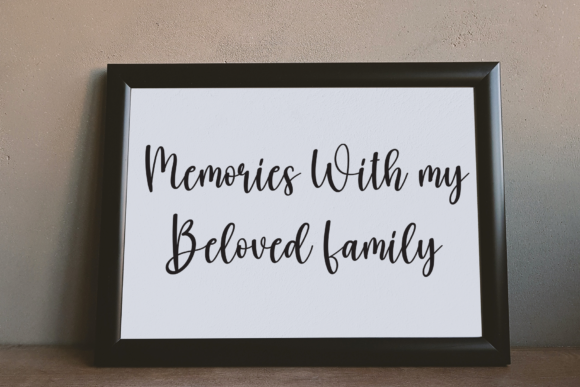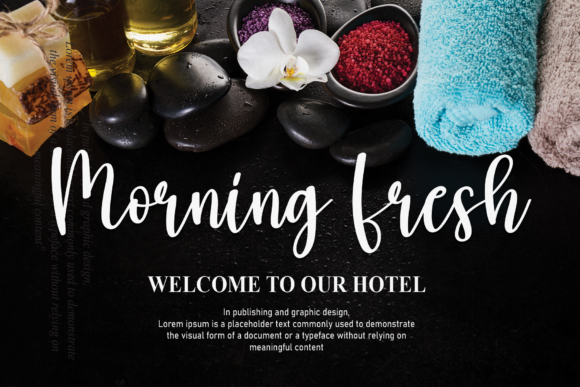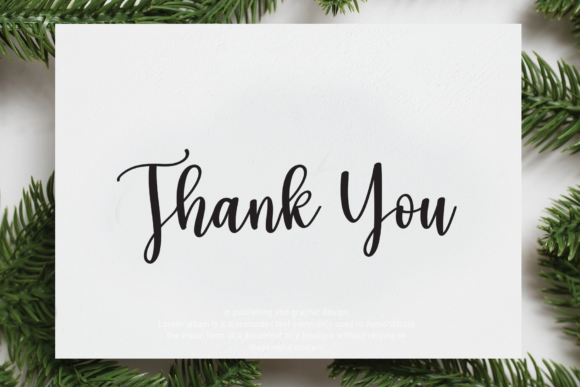
Hello Christmas Font
About Hello Christmas Font
Hello Christmas is a beautifully flowing handwritten font. Use it to create outstanding wall displays, wedding invitations, social media post logos, advertisements, product packaging, product designs, labels, photography, watermarks, invitations, stationery, or anything else!